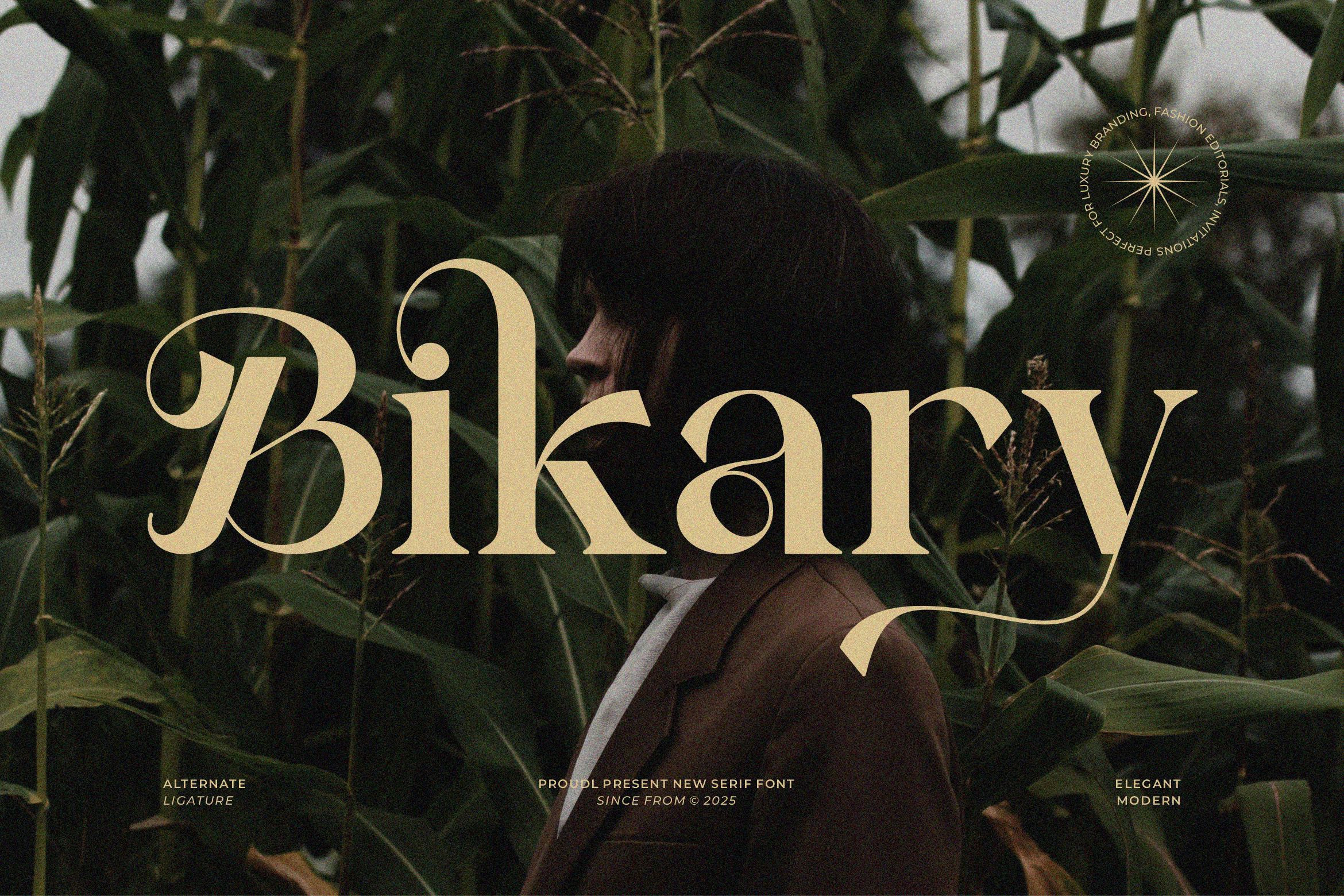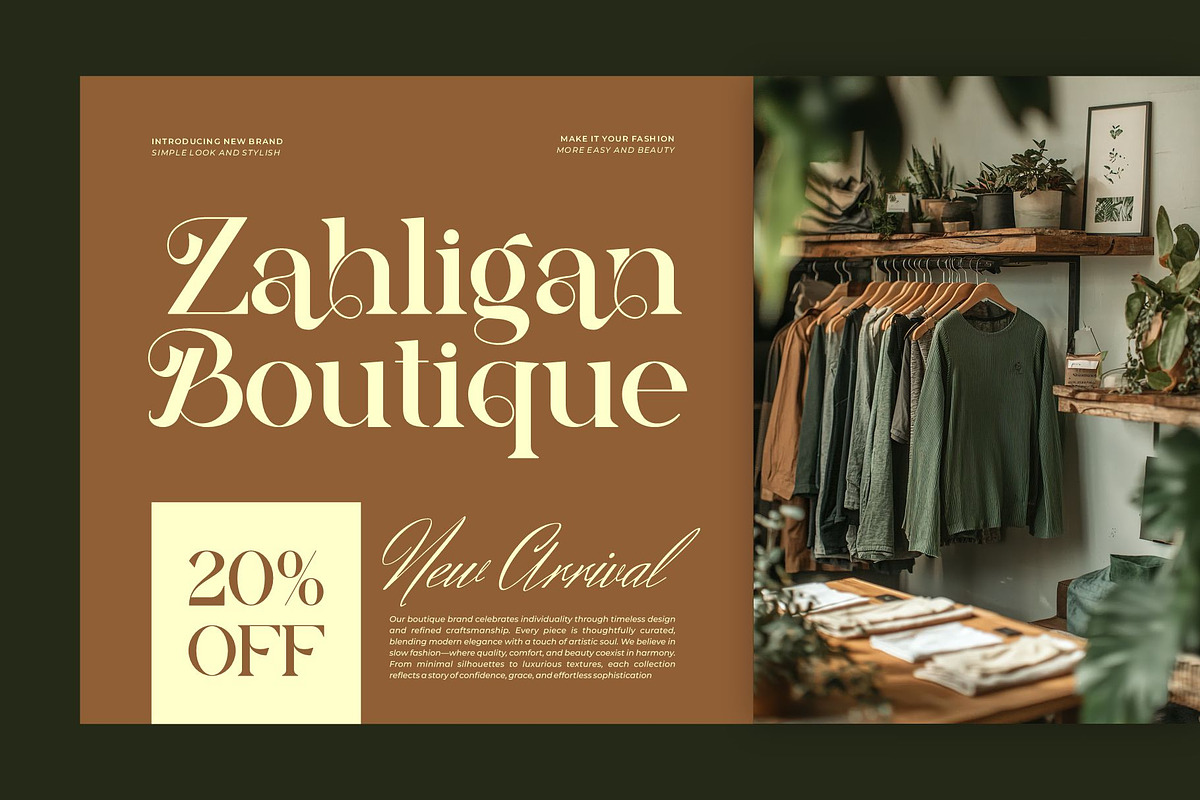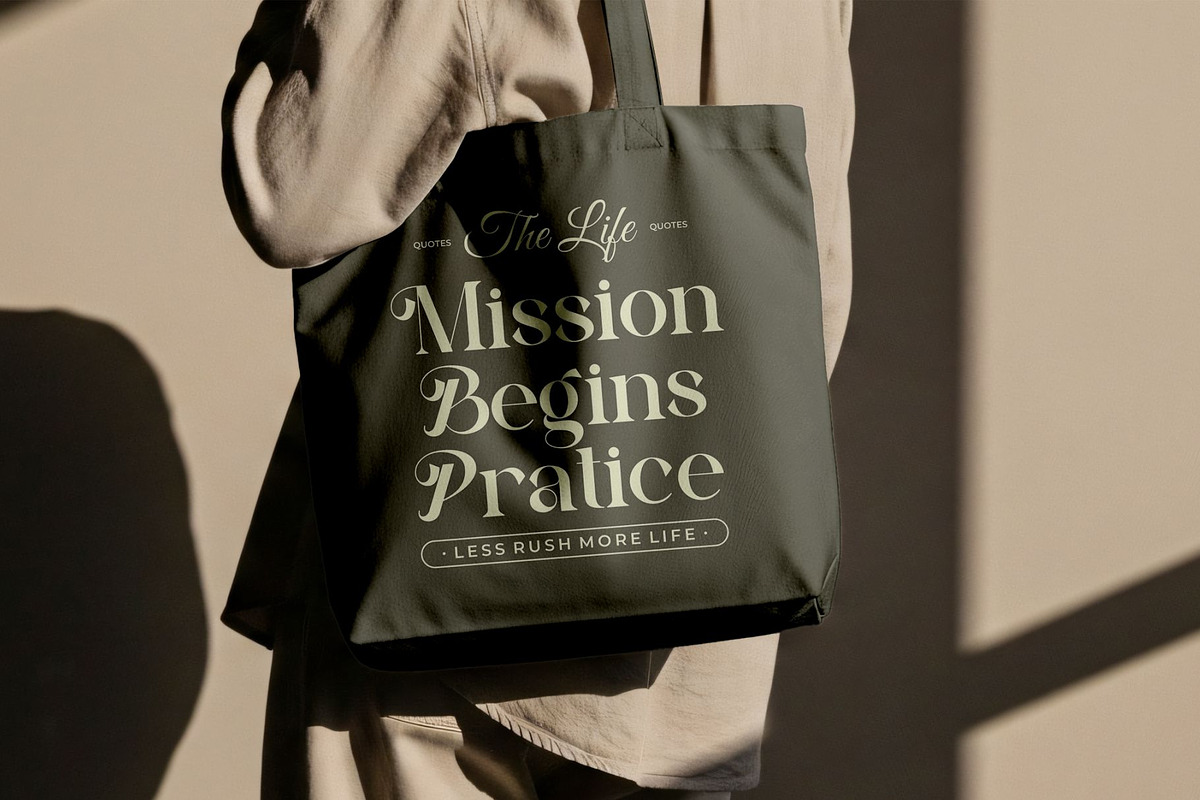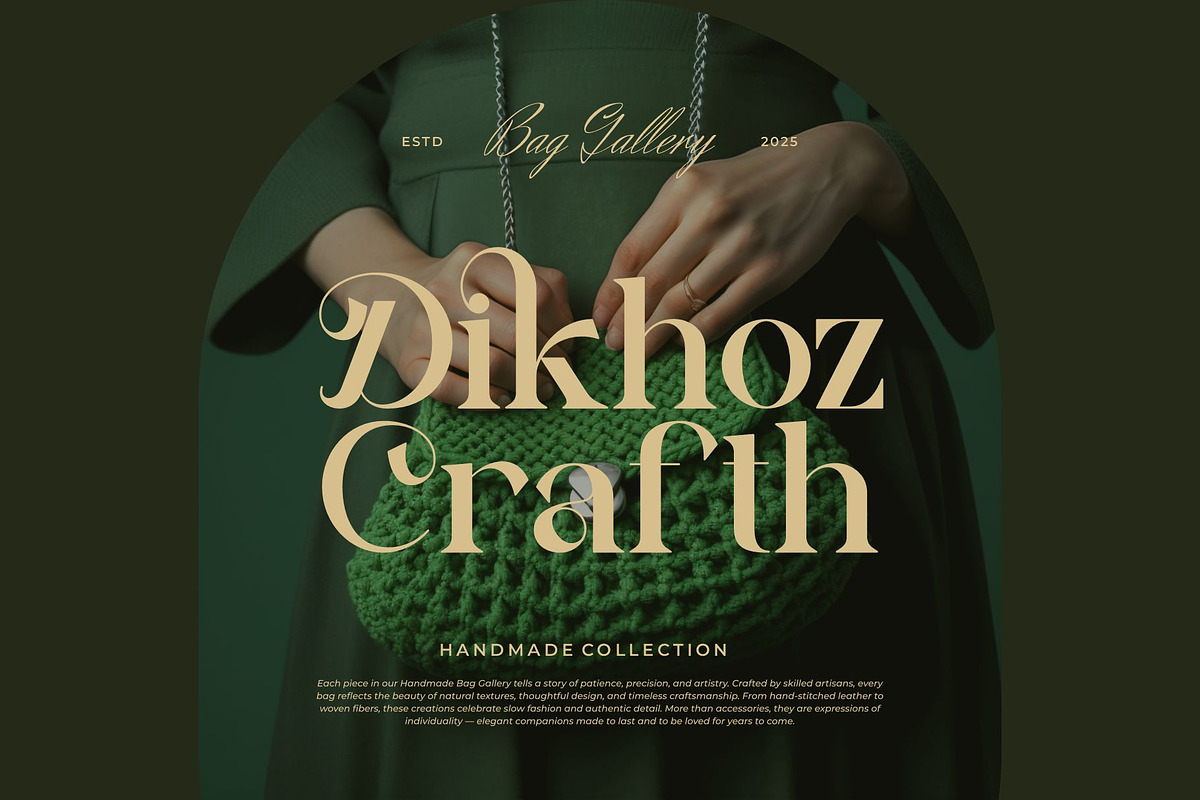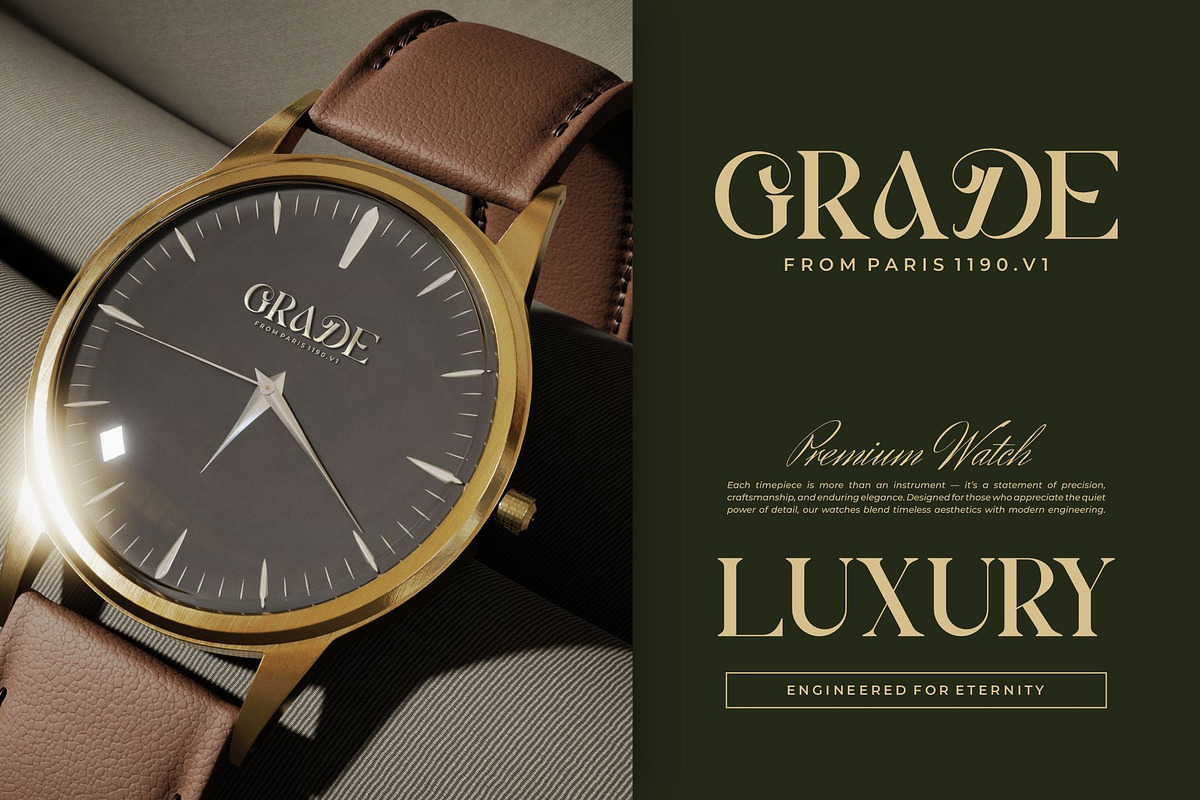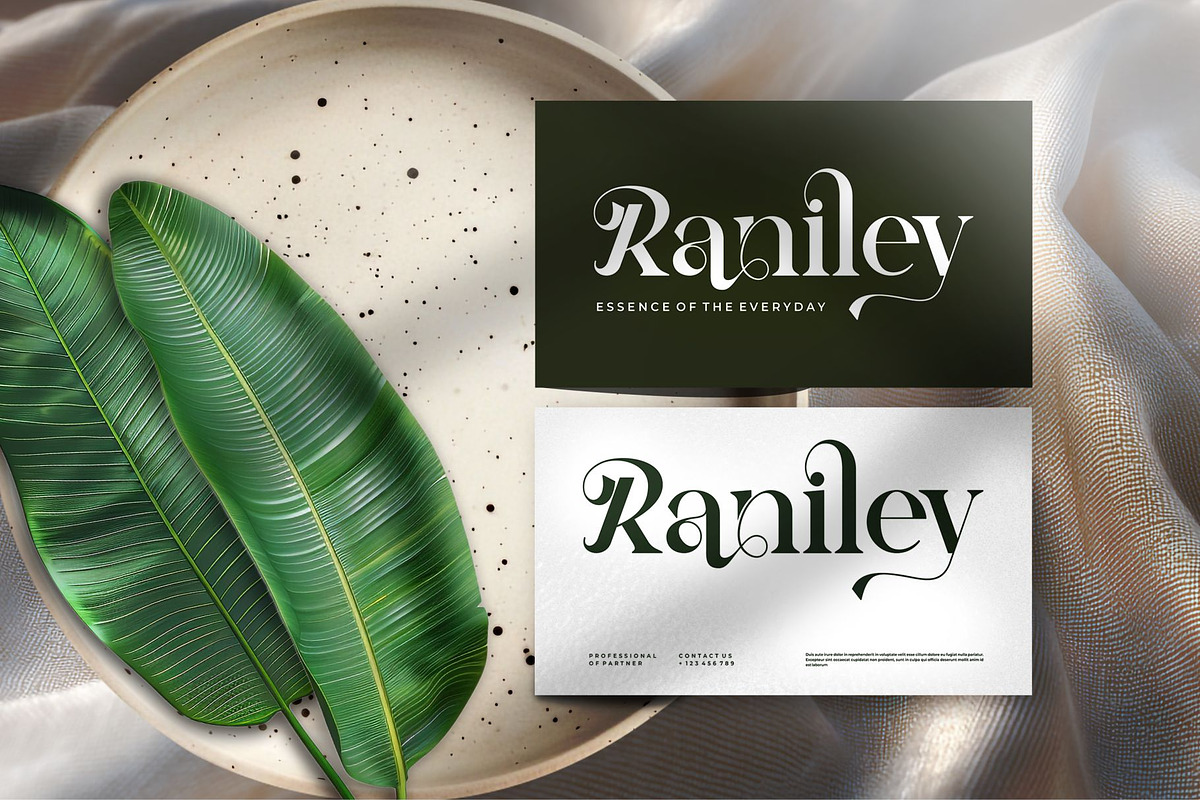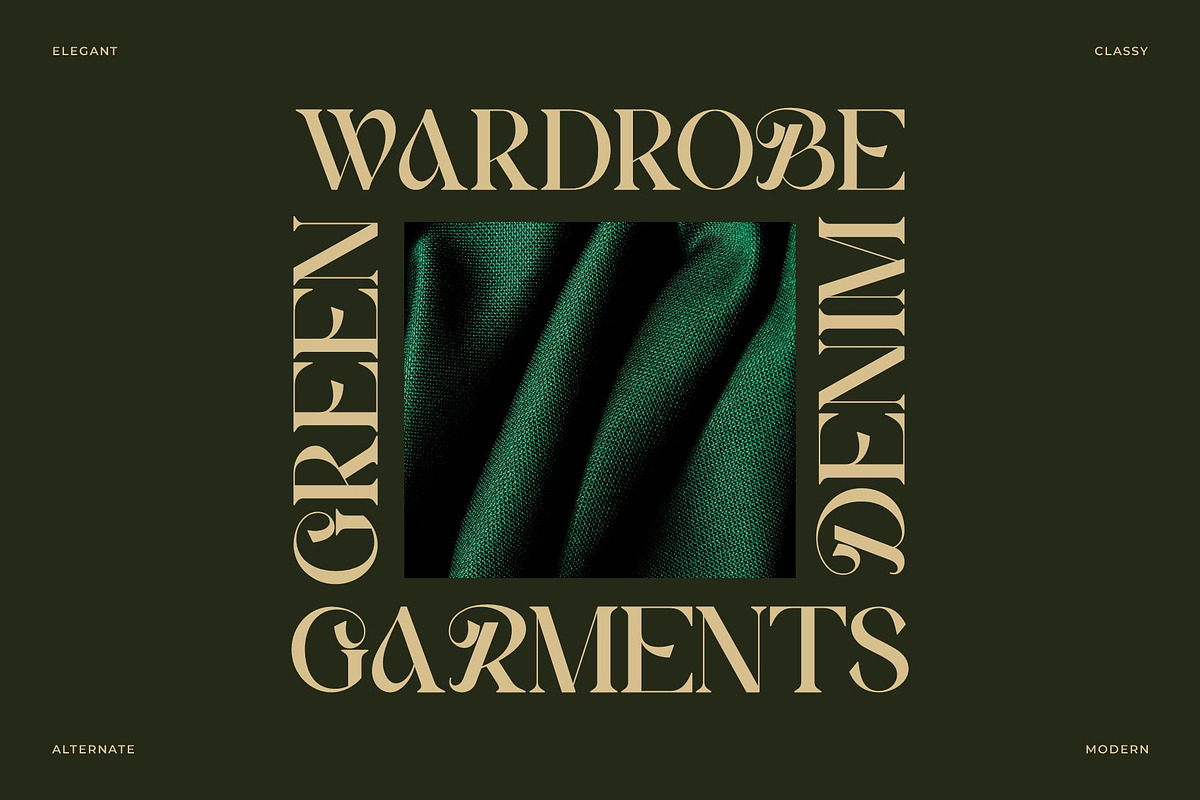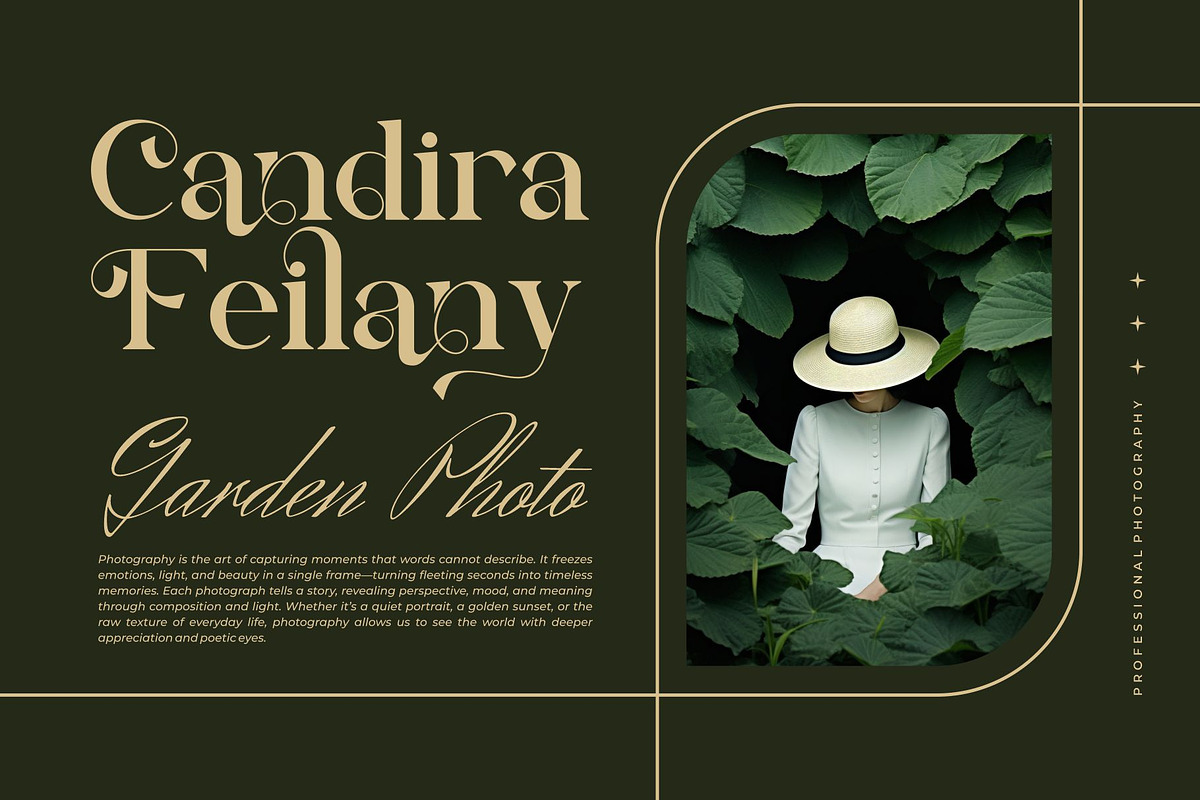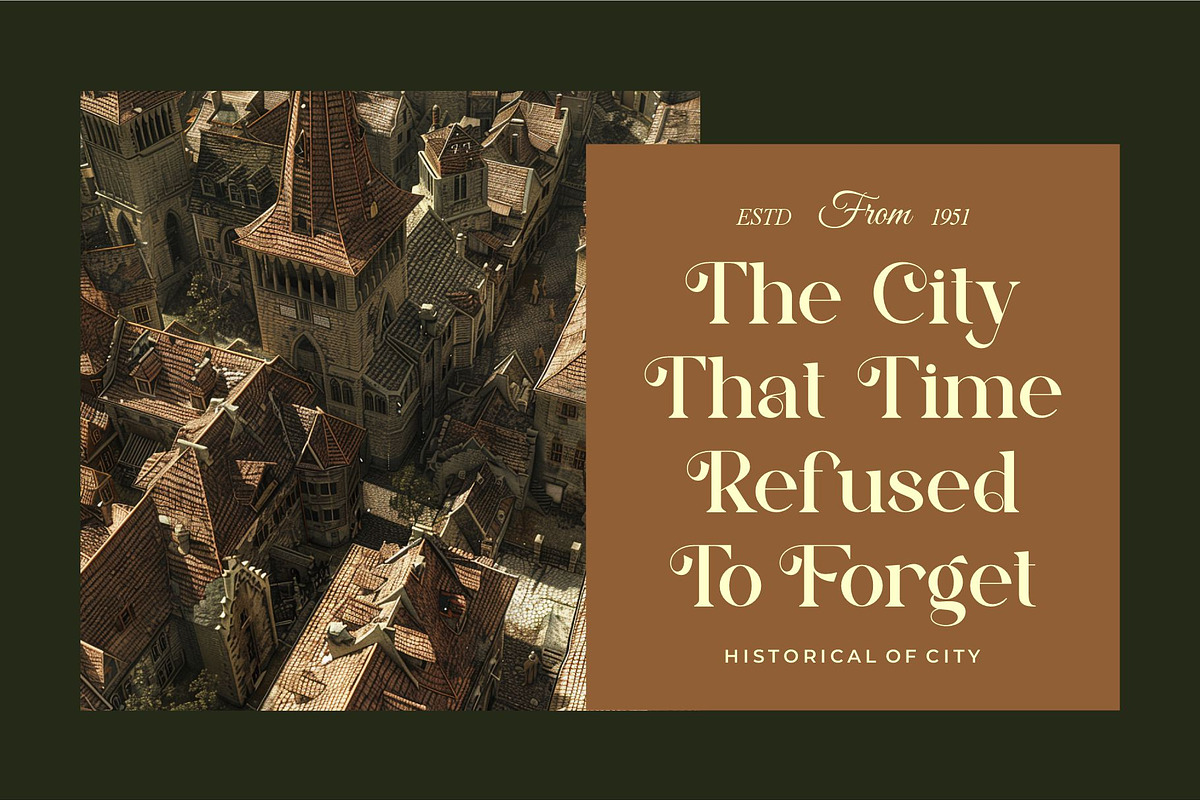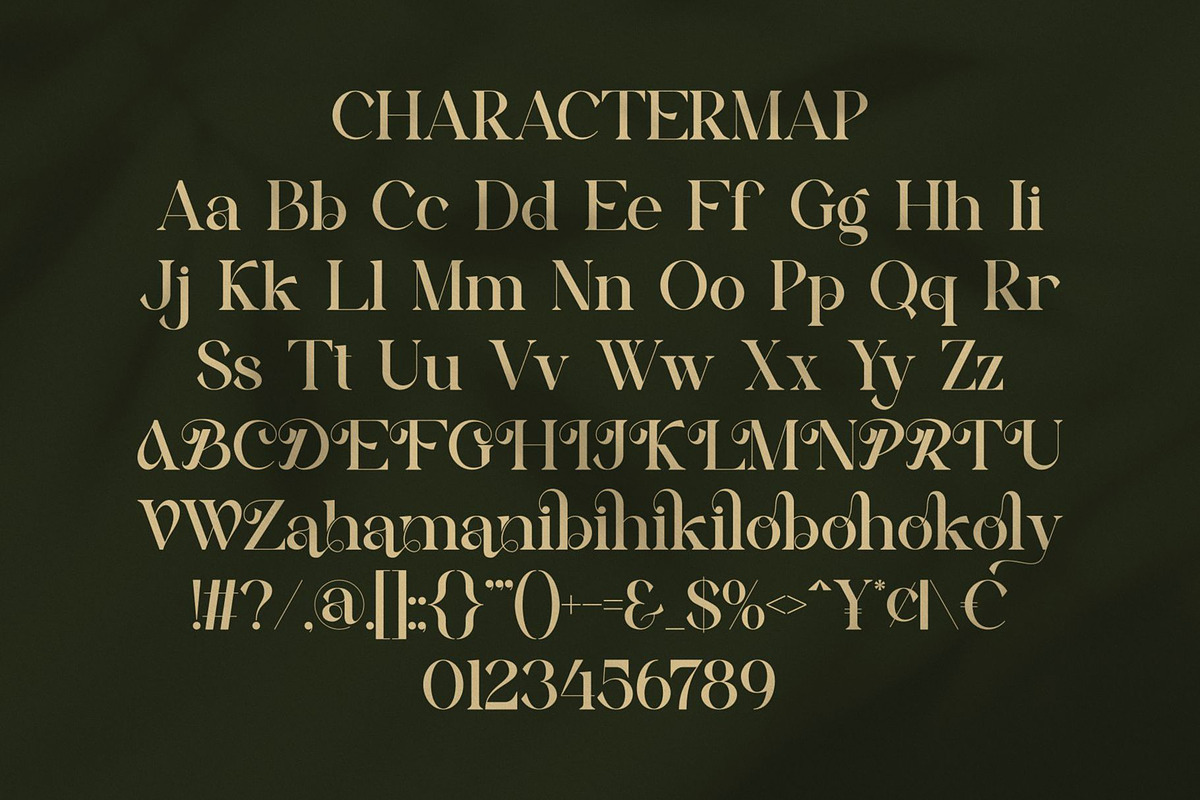
Bikary || Modern Classy Serif Font
Bikary Serif is a modern and classy font type for all branding and logo designs. This modern and classy Serif font has a beautiful character. This font is suitable for invitation card designs, cool logos, movie titles, movie names, business cards, book titles, brand names, and various other designs. Bikary Serif is a smooth serif font that exudes sophistication and the moment. Its stylish ligatures and alternate make this font a perfect partner for any project.
- Ligature & Alternate